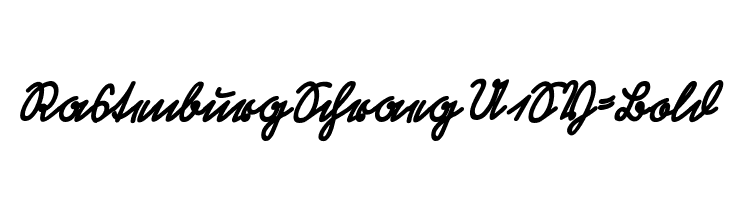
A bold, cursive font with fluid, connected strokes and a dynamic appearance.
A bold, cursive font with a dynamic slant and fluid connections.
A bold, cursive font with a flowing, handwritten style.
A bold, expressive script font with fluid, interconnected strokes.
A bold, cursive script font with a dynamic and fluid style.
A bold, flowing script font with elegant, connected letters.